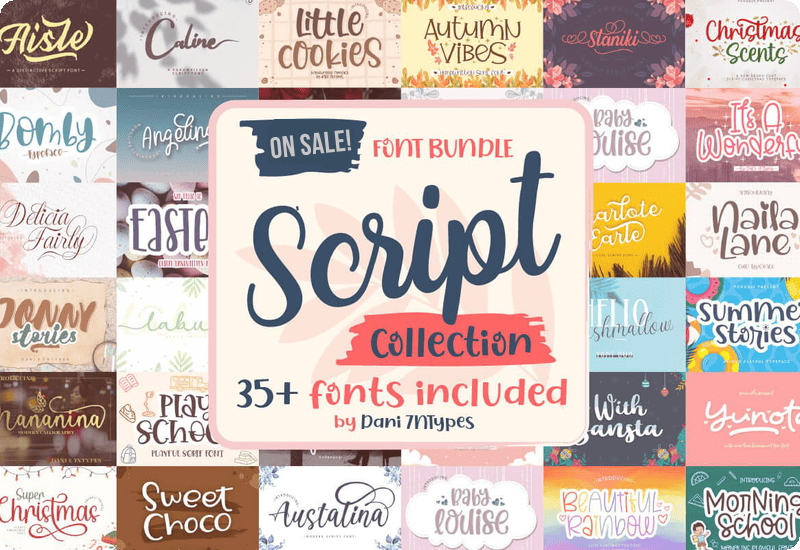
What is the Script Collection Font Bundle?
Ranging from playful to elegant, the bundle includes a font for every creative endeavor. Whether you’re working on a graphic design project, creating marketing materials, or updating your website, this collection has something to suit every style and need.
A Versatile Typography Toolkit
With an extensive selection of font styles, the Script Collection Font Bundle provides versatility for any design project. Whether you need a casual, hand-drawn look or a sophisticated script, this collection has it all.
Elevate Your Brand
The unique fonts in this bundle can help set your brand apart, infusing your visual identity with character and style that resonates with your audience.
Best Uses for the Script Collection Font Bundle
Seasonal Promotions and Events
Utilize fonts like ‘Christmas Scents’ or ‘Autumn Vibes’ to craft seasonal marketing materials that capture the essence of the holidays and special occasions.
Personalized Products and Crafts
Create one-of-a-kind invitations, greeting cards, or custom gifts that require a personal touch with charming fonts like ‘Little Cookies’ or ‘Cathea Script’.
Digital Media Mastery
With the rise of digital content, enhance your web design, social media graphics, and online advertisements with eye-catching fonts that keep viewers engaged.
Print Materials Perfected
Stand out with printed brochures, posters, and flyers using fonts like ‘Hey Molly’ to ensure your message is both readable and visually compelling.